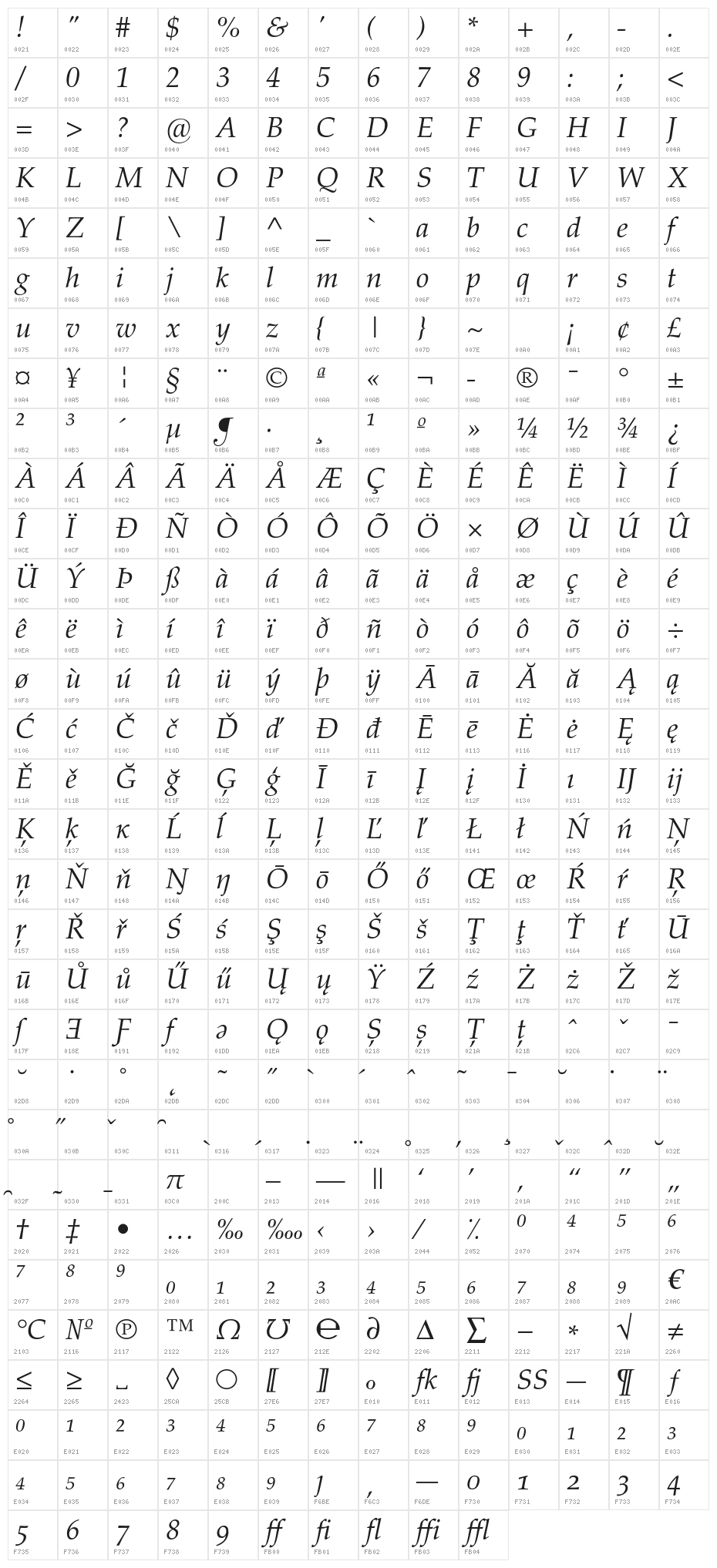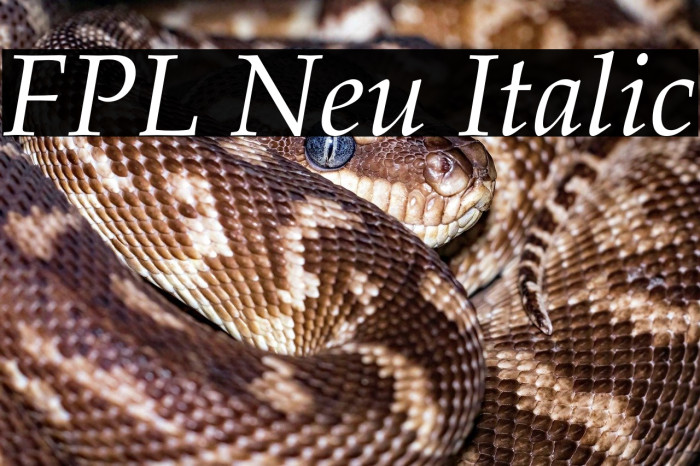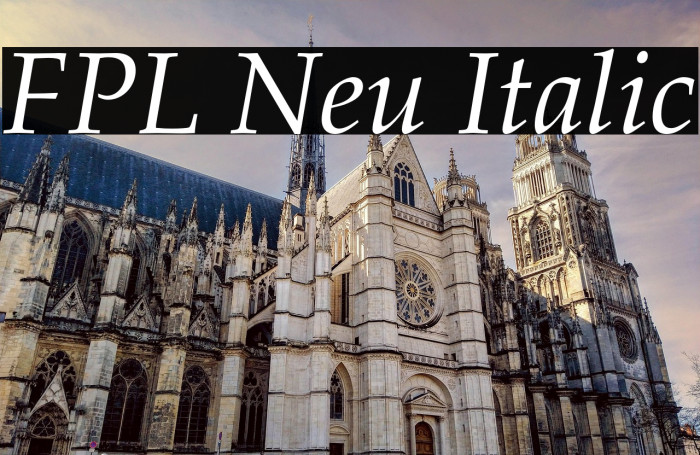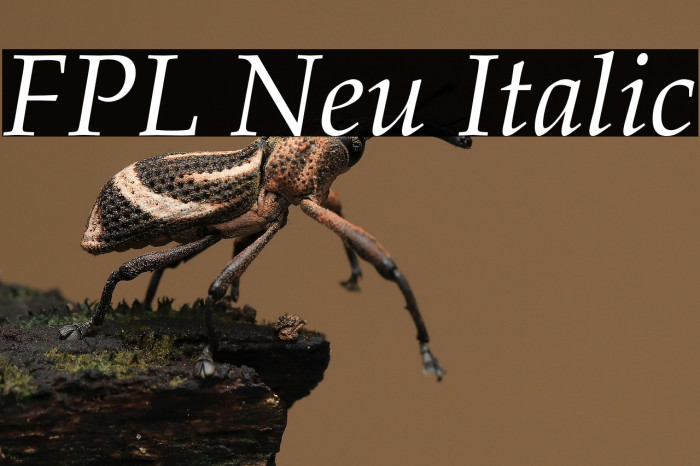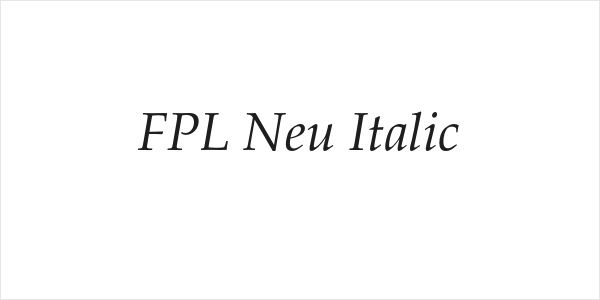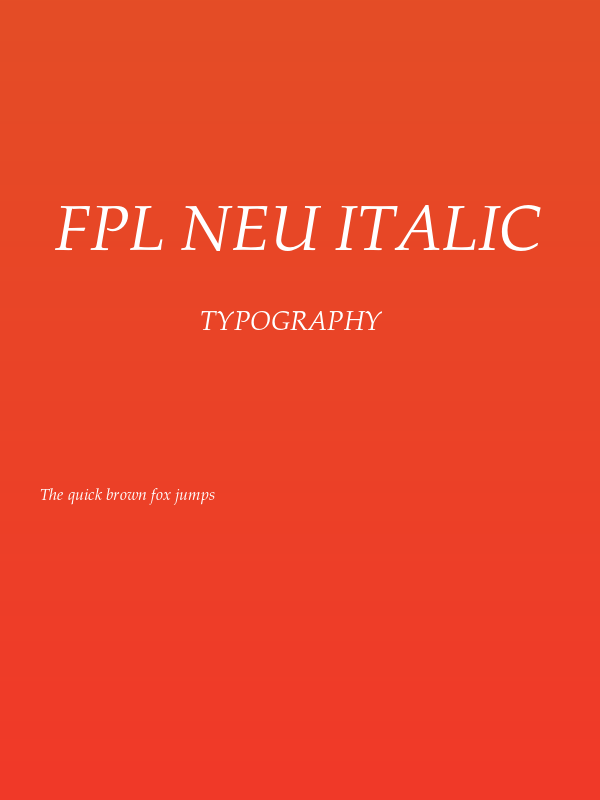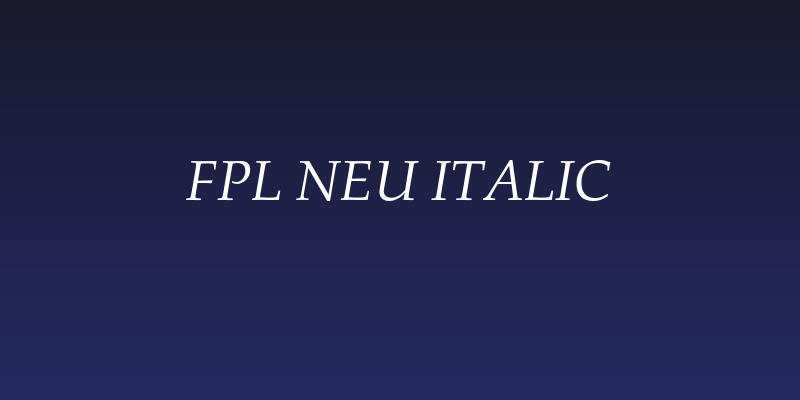
FPL Neu Italic Font
FPL Neu Italic Description
This font exhibits a classic and elegant style with a distinct italic slant, giving it a sophisticated and refined appearance. The characters are well-proportioned with a slight inclination, enhancing readability while maintaining a stylish flair. The serifs are pronounced yet delicate, adding a touch of traditional charm. The numerals are clear and consistent, complementing the overall aesthetic. Special characters are crafted with precision, ensuring they blend seamlessly with the alphabetic characters. This font is ideal for projects that require a touch of elegance and formality.
| Proposed Projects | Ideal for formal invitations, elegant branding, editorial design, and classic book typesetting. |